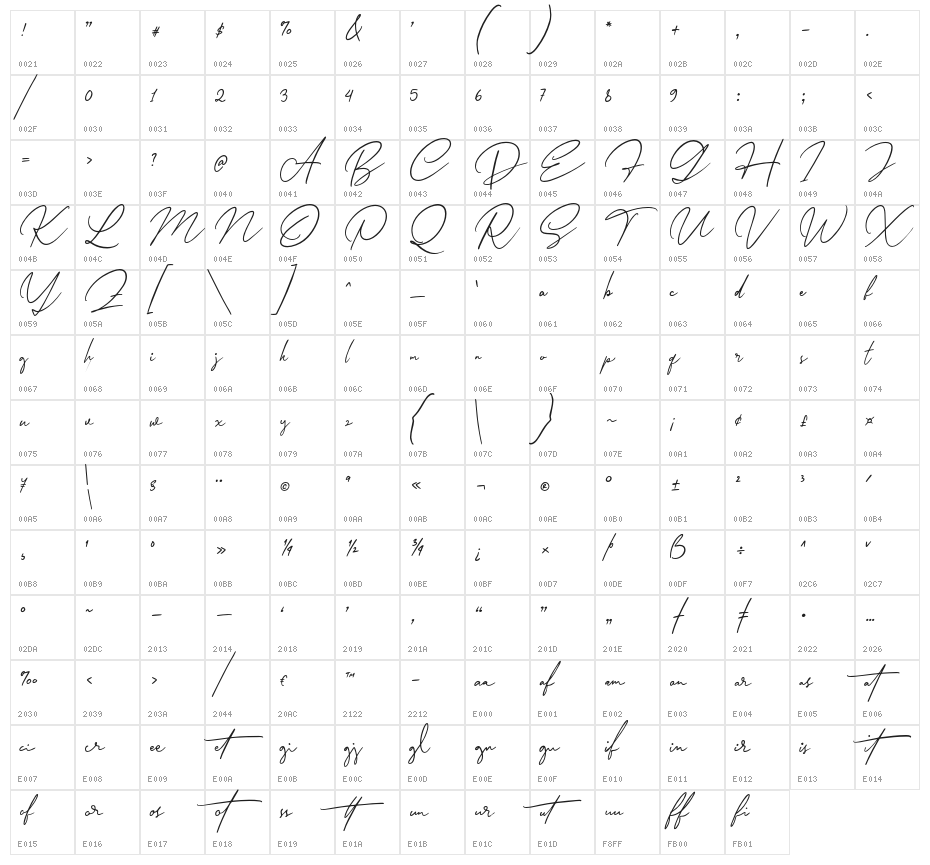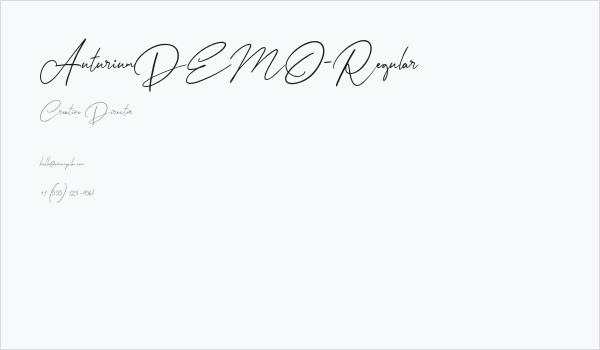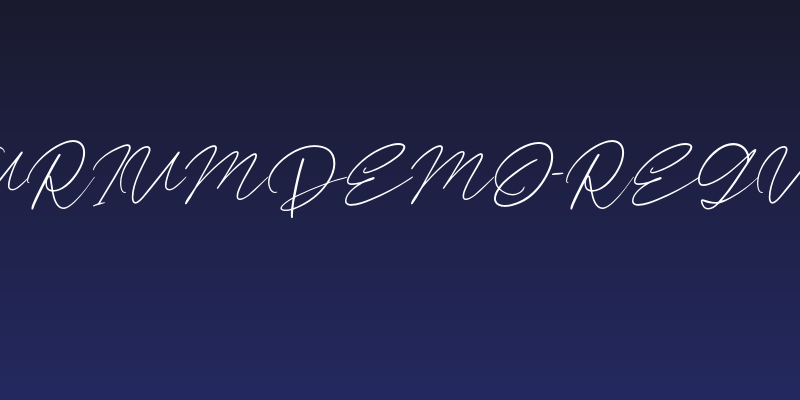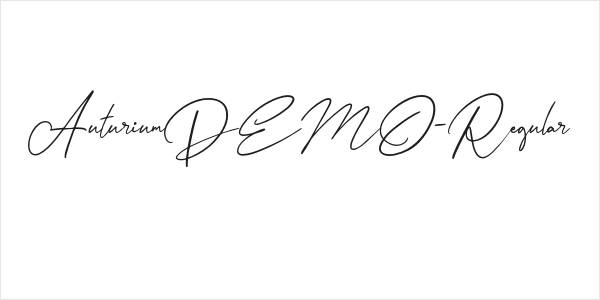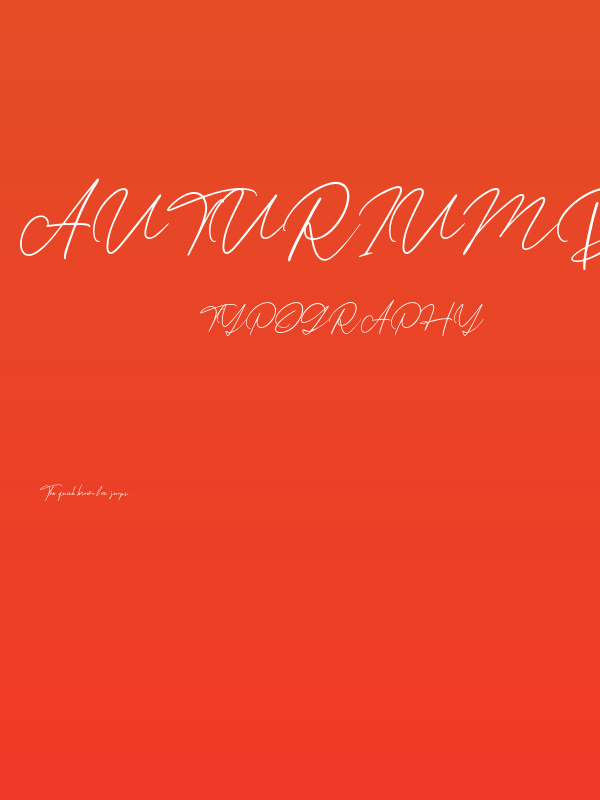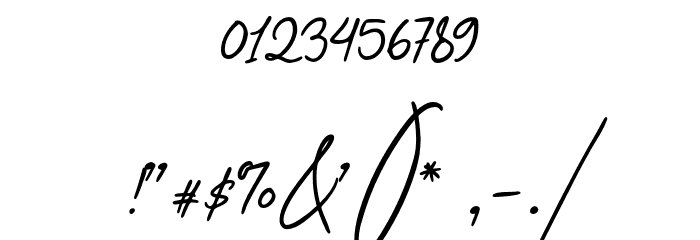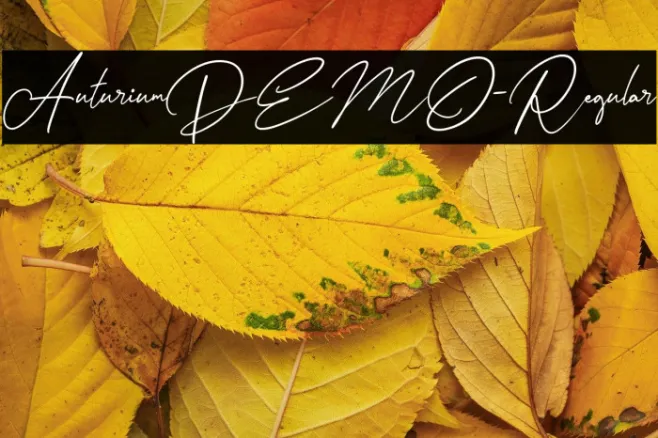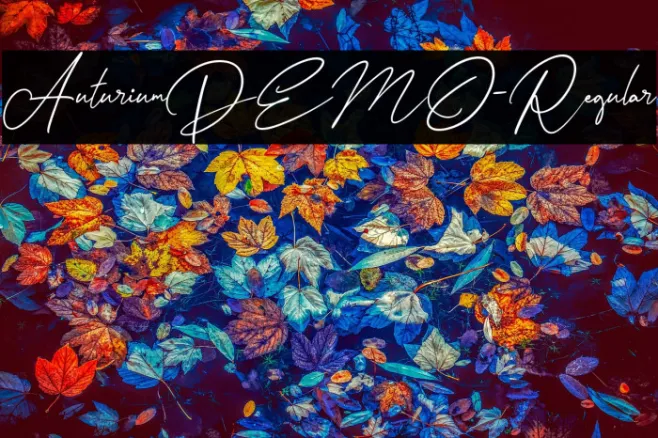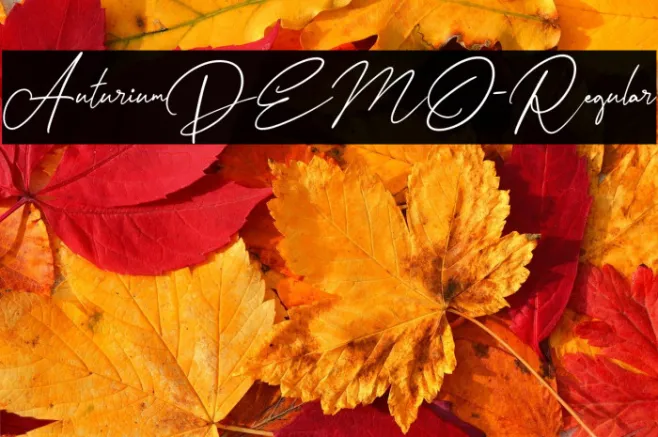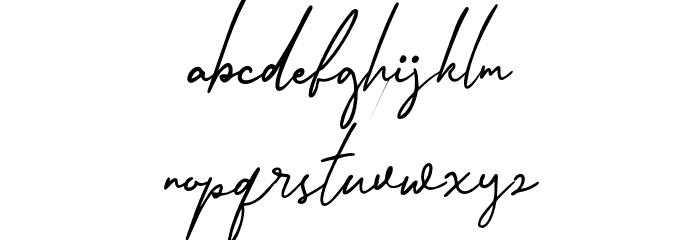
AuturiumDEMO-Regular Font
AuturiumDEMO-Regular Description
This font exudes elegance and sophistication with its fluid, cursive style. The characters are connected in a seamless flow, reminiscent of traditional calligraphy. The uppercase letters are tall and graceful, while the lowercase letters maintain a consistent rhythm and balance. The numerals are distinct yet harmonious, fitting well with the overall aesthetic. Special characters are crafted with the same attention to detail, adding versatility to the font. Its delicate strokes and smooth curves make it ideal for projects that require a touch of refinement and class.